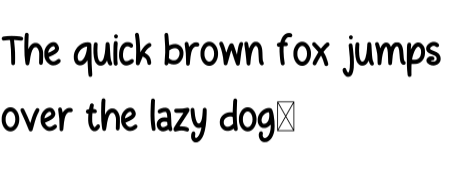
Hello There Font: A Playful and Natural Handwritten Font
The world of typography is vast and diverse, with numerous fonts available for various design needs. Among these, the “Hello There Font” stands out as a playful and natural handwritten font that can elevate any design project. In this article, we’ll explore the features, benefits, and uses of the Hello There Font, and why it’s an incredible asset to your font library.
What is Hello There Font?
Hello There Font is a handwritten font designed to add a personal touch to your designs. Its playful and natural style makes it perfect for a wide range of projects, from creative branding and advertising to digital content and social media graphics. The font’s unique charm lies in its handcrafted feel, which gives it a distinctive and authentic look.
Features of Hello There Font
The Hello There Font boasts several features that make it an excellent addition to your font collection:
- Playful and Natural Style: The font’s handwritten style gives it a friendly and approachable feel, making it perfect for designs that require a personal touch.
- Versatility: Hello There Font is suitable for various design projects, including branding, advertising, digital content, and social media graphics.
- Easy to Read: The font’s clear and legible design ensures that your message is conveyed effectively, even at smaller font sizes.
- Unique Character Set: The font includes a range of characters, symbols, and glyphs, allowing you to create unique and creative designs.
Benefits of Using Hello There Font
Incorporating the Hello There Font into your design projects offers several benefits:
- Elevate Your Designs: The font’s unique style and charm can elevate your designs, making them more engaging and memorable.
- Stand Out from the Crowd: Hello There Font’s distinctive look helps your designs stand out from the competition, making it perfect for brands looking to establish a strong visual identity.
- Save Time and Effort: With its clear and legible design, you can save time and effort in creating custom designs from scratch.
Uses of Hello There Font
The Hello There Font is versatile and can be used in various design projects, including:
- Branding and Advertising: Use the font to create custom logos, business cards, and advertising materials that reflect your brand’s personality.
- Digital Content: Enhance your blog posts, social media graphics, and website designs with the font’s playful and natural style.
- Print Materials: Use the font for brochures, flyers, posters, and other print materials that require a personal touch.
- Packaging Design: Add a touch of personality to your product packaging with the Hello There Font.
The Hello There Font is a playful and natural handwritten font that can elevate any design project. Its versatility, unique character set, and ease of use make it an incredible asset to your font library. Whether you’re a designer, marketer, or entrepreneur, this font is sure to become a favorite in your design arsenal.